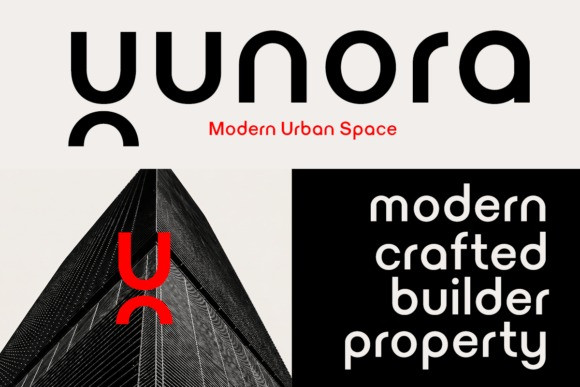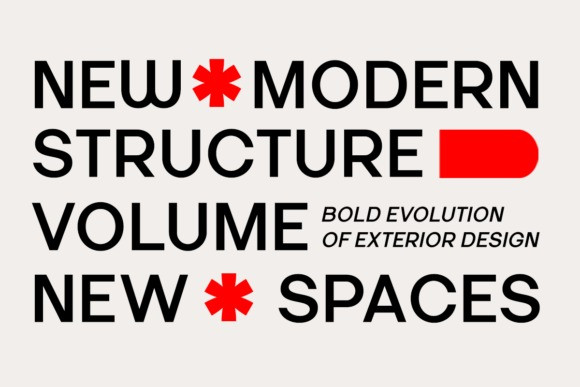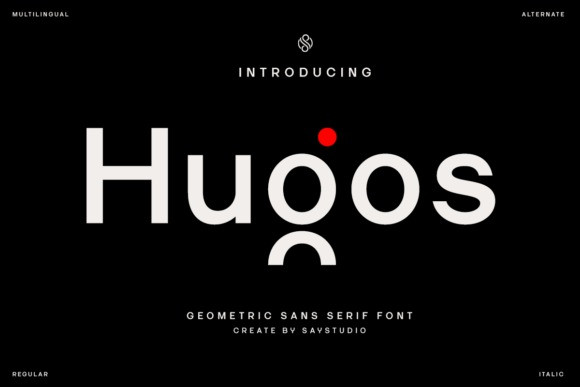
Hugos Font
Hugos Font is a geometric sans serif font that combines modern simplicity with distinctive visual character. Designed for versatility, Hugos works perfectly for branding, logos, UI design, and modern digital layouts. The geometric foundation gives it a structured and professional feel, while subtle stylistic details make it stand out in headlines and identity systems. With both regular and italic styles, it offers flexibility for dynamic compositions.
Whether you’re building a tech brand, a modern interface, or a clean visual identity, this typeface delivers a sleek and forward-thinking aesthetic.